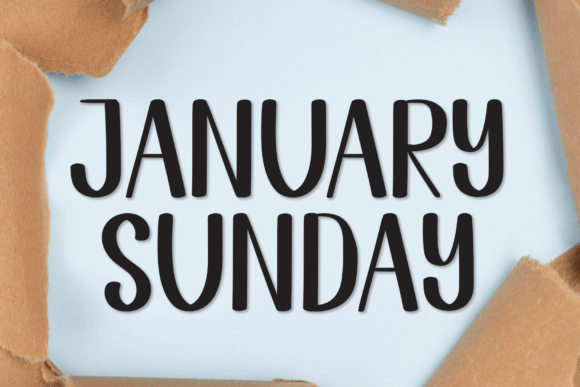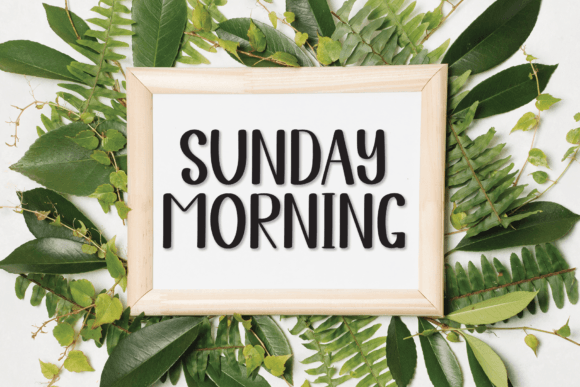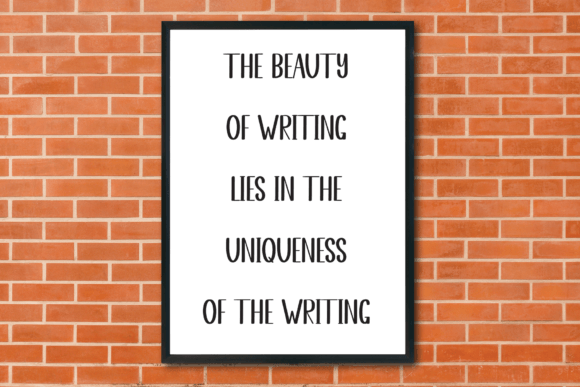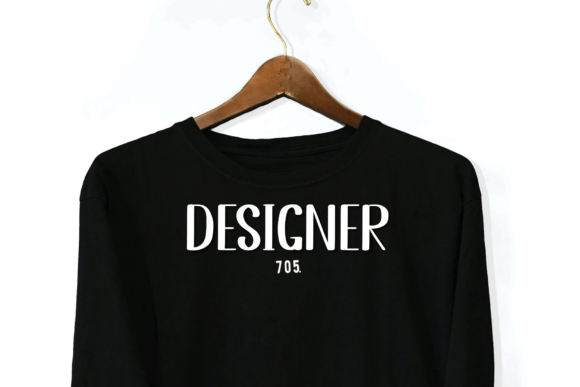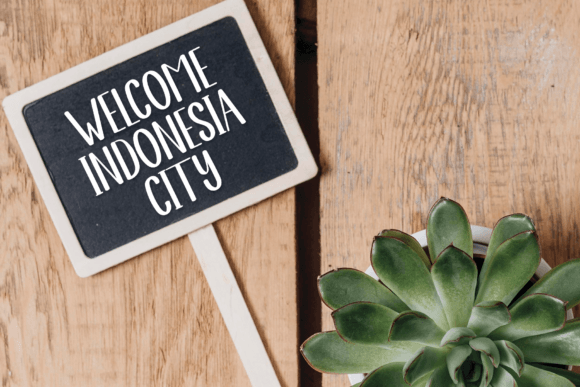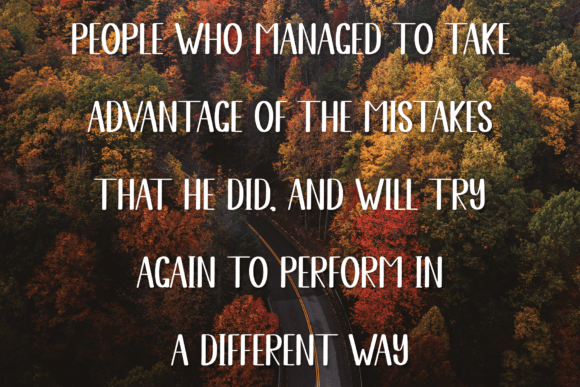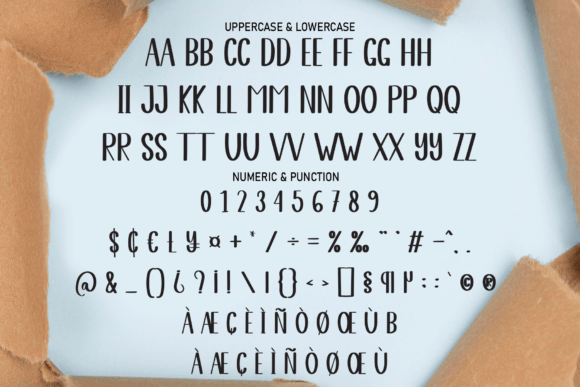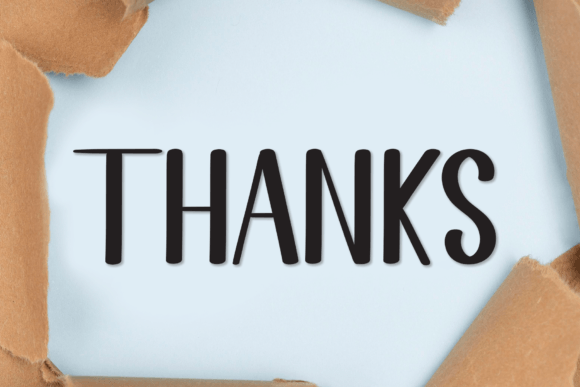
January Sunday Font
An All-Caps Handwritten Font for Creative Projects
The January Sunday Font is an all-caps handwritten typeface that offers a unique and stylized touch to any project. With its bold and authentic design, this font is perfect for a variety of creative applications. Whether you’re designing wedding invitations, social media logos, advertisements, or product packaging, the  adds a personalized and modern handwritten feel to your text, making your work stand out with charm and elegance.
Perfect for Wedding Invitations and Special Occasions
The January Sunday Font is ideal for wedding invitations and other special occasions. Its all-caps design brings a bold yet elegant feel to your text, making it perfect for save-the-dates, invitations, and thank you cards. Whether you’re planning a wedding, birthday party, or celebration, this font ensures your materials have a personal, timeless touch.
Great for Social Media Logos and Branding
For social media logos and branding, the January Sunday Font provides a distinctive, authentic style. Whether you’re creating a personal brand, business logo, or Instagram post logo, this font gives your brand identity a bold, memorable touch. Its handwritten style ensures your brand stands out in a crowded digital landscape, creating a strong, personalized presence.
Ideal for Advertisements and Product Packaging
For advertisements and product packaging, the January Sunday Font adds a fresh, eye-catching design to your materials. Whether you’re creating product labels, flyers, or promotional posters, this font brings an element of style and authenticity to your designs. Its all-caps structure ensures that your text is bold and engaging, grabbing the attention of potential customers.
Perfect for Photography and Watermarks
For photography and watermarks, the January Sunday Font offers a clean and distinctive look. Whether you’re adding a photographer’s watermark or signature to your images, this font ensures your work feels personalized and professional. Its strong, clear characters make it an ideal choice for photo albums, portfolios, or watermarks without overshadowing the images themselves.
Elegant, Legible, and Versatile
Despite its all-caps handwritten style, the January Sunday Font remains legible and versatile. Its well-balanced characters ensure that your text is clear and easy to read, even at smaller sizes or for longer passages. Whether you’re creating headlines, captions, or body text, this font strikes the perfect balance of style and clarity, making it suitable for a variety of creative applications.
Add Bold Elegance to Your Designs with January Sunday Font
If you’re looking for a bold, authentic, and handwritten  to elevate your designs, the January Sunday Font is the perfect choice. Whether you’re working on wedding invitations, logos, advertisements, or product packaging, this font brings a personalized, charming touch to your work. Let the add elegance and authenticity to your creative projects and help them stand out with style.